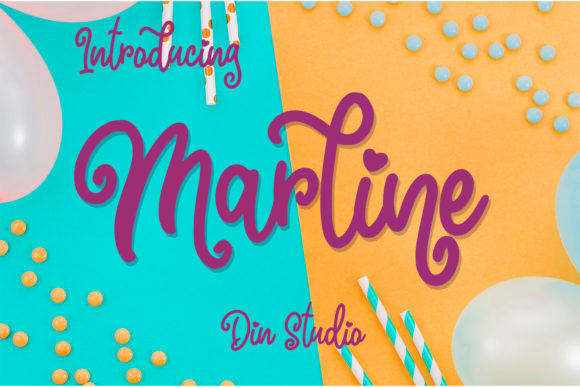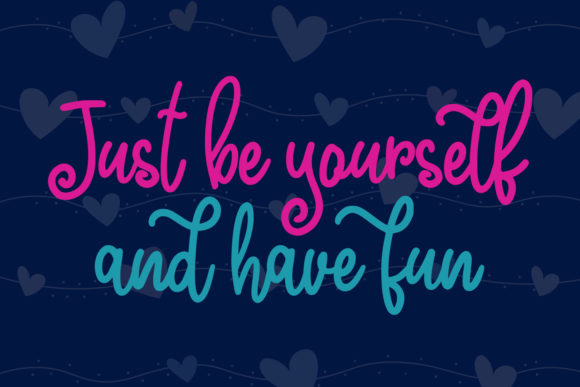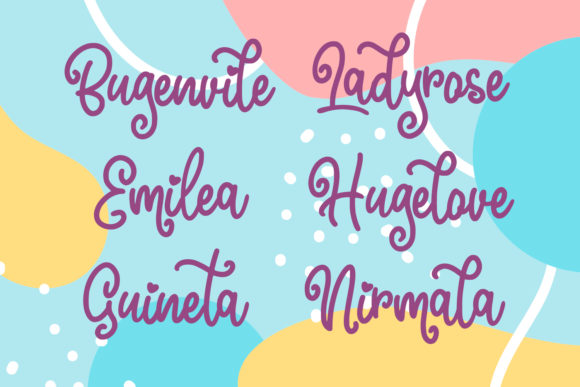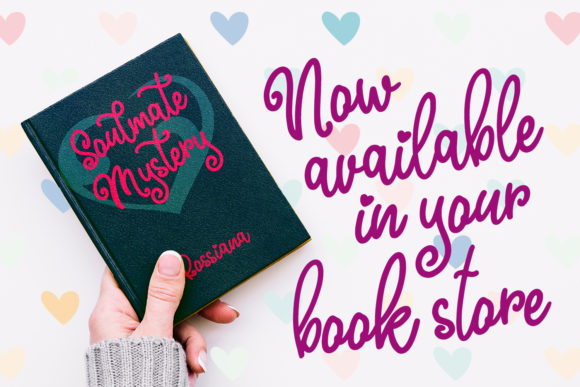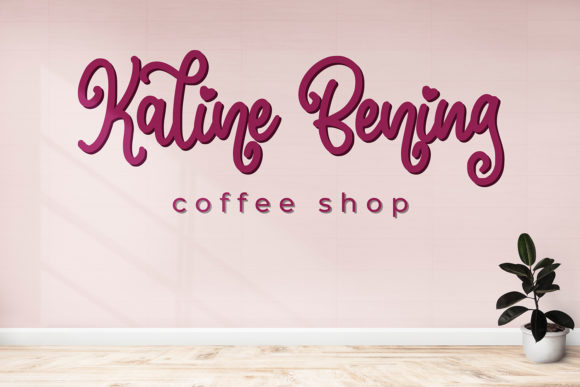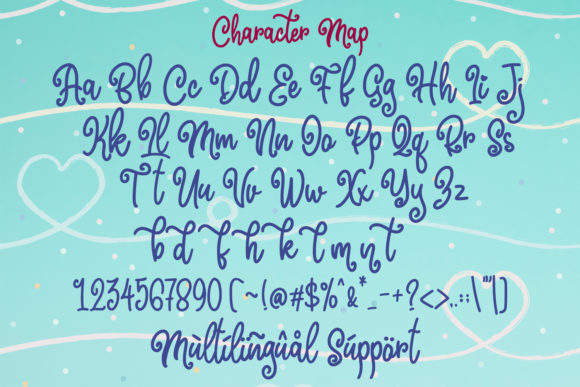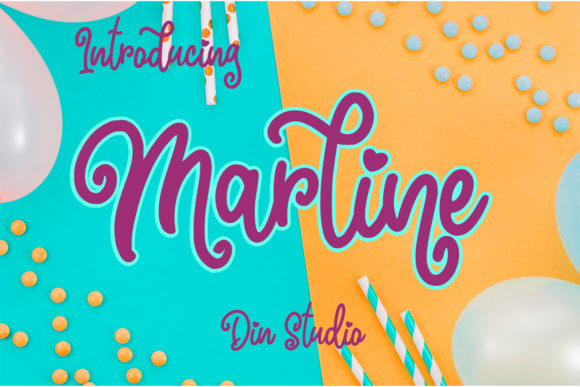
HomeScript FontsMarline Script Font Script Fonts Marline Script Font FacebookXPinterestWhatsApp Marline Script Font Poster 2 Marline Script Font Poster 3 Marline Script Font Poster 4 Marline Script Font Poster 5 Marline Script Font Poster 6 Marline Script Font Poster 7 Marline Script Font Poster 8 About Marline Script Font Marline is a sweet, swirly and beautiful script with a friendly feel. Get inspired by its lovely look! DOWNLOAD NOW People also explored Sandyakala Font Clementine Font Happy Happiness Font Wandara Font Aleyia Script Font Zeitgeist Font Beatrice Font ZP Oh, Darling Font Cute Baby Font 358 0 TagsMarline Script Font Previous articleGistesy FontNext articleApricat Font LEAVE A REPLY Cancel reply Comment: Please enter your comment! Name:* Please enter your name here Email:* You have entered an incorrect email address! Please enter your email address here Website: Save my name, email, and website in this browser for the next time I comment. Personal Use Free Dealisya Personal Use Free Read more about this font The Sweet Neo Personal Use Free Read more about this font Budmo Personal Use Free Read more about this font Eits Personal Use Free Read more about this font BLOG Top 7 Google Fonts Alternatives for Faster and Privacy-Friendly Web Design (2025) Top 7 Google Fonts Alternatives for Faster and Privacy-Friendly Web Design (2025) When it comes to web typography, Google Fonts has long been the go-to... How to Cut Any Font on Cricut: Convert a Font to SVG (Free) Using Fonts in Digital Marketing: Tips to Strengthen Your Brand Identity 5 Fonts That Will Dominate Design Trends in 2026